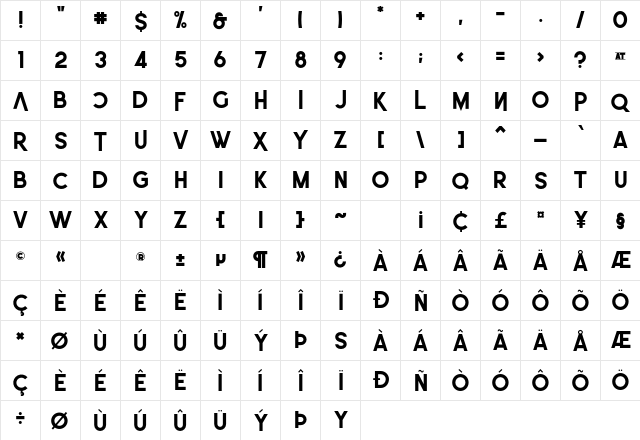
LEonardo-Demo Bold Font Preview
LEonardo-Demo Bold
LEonardo-Demo Bold Font Details
| Foundry | Factory738 |
| Designer | Wahyu Setiya Rahmawan |
Design Context for LEonardo-Demo Typeface
LEonardo-Demo is a composed and adaptable typeface that performs quietly and consistently across a wide range of design contexts. The heavy weight commands attention and anchors typographic hierarchies.